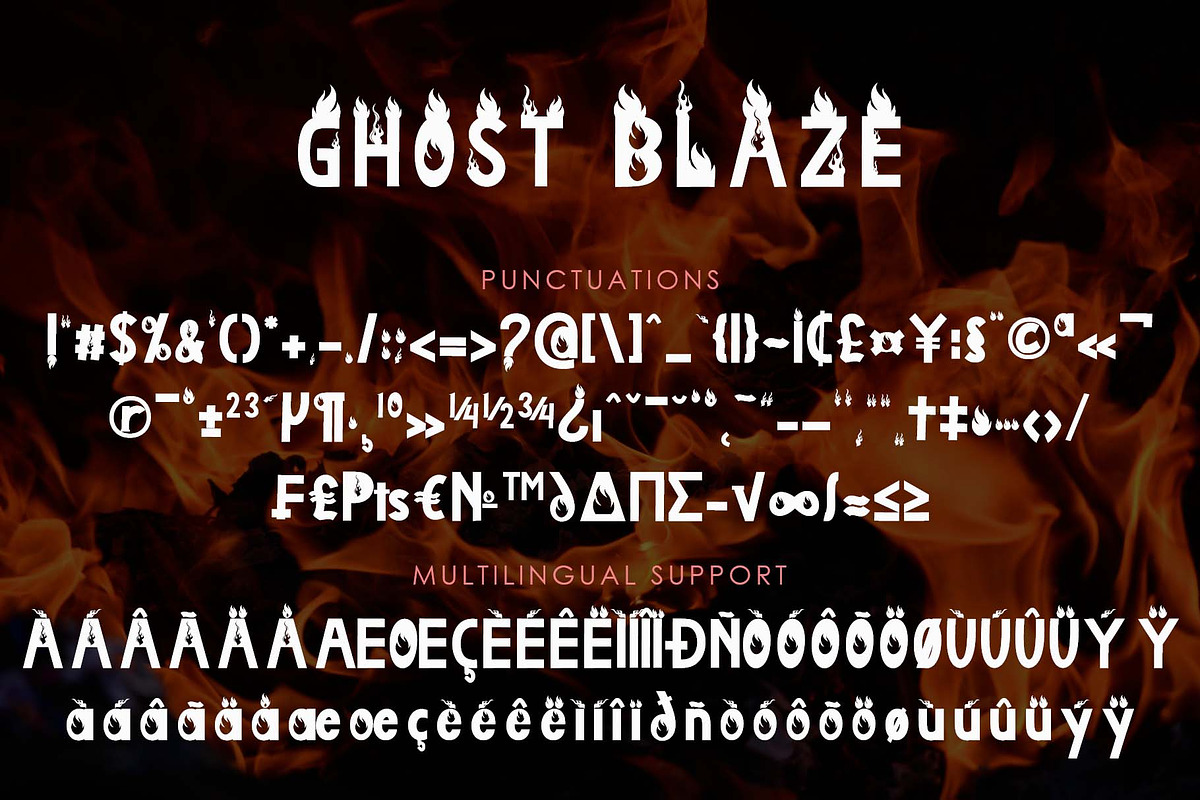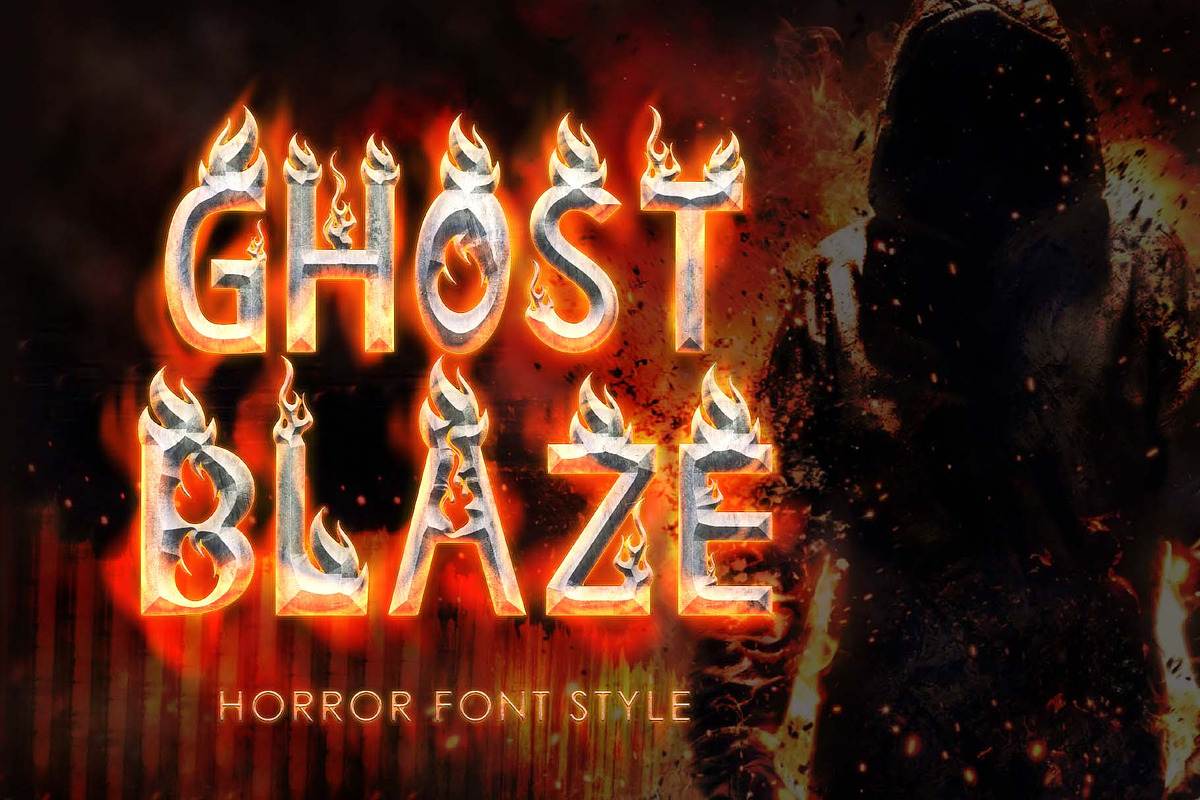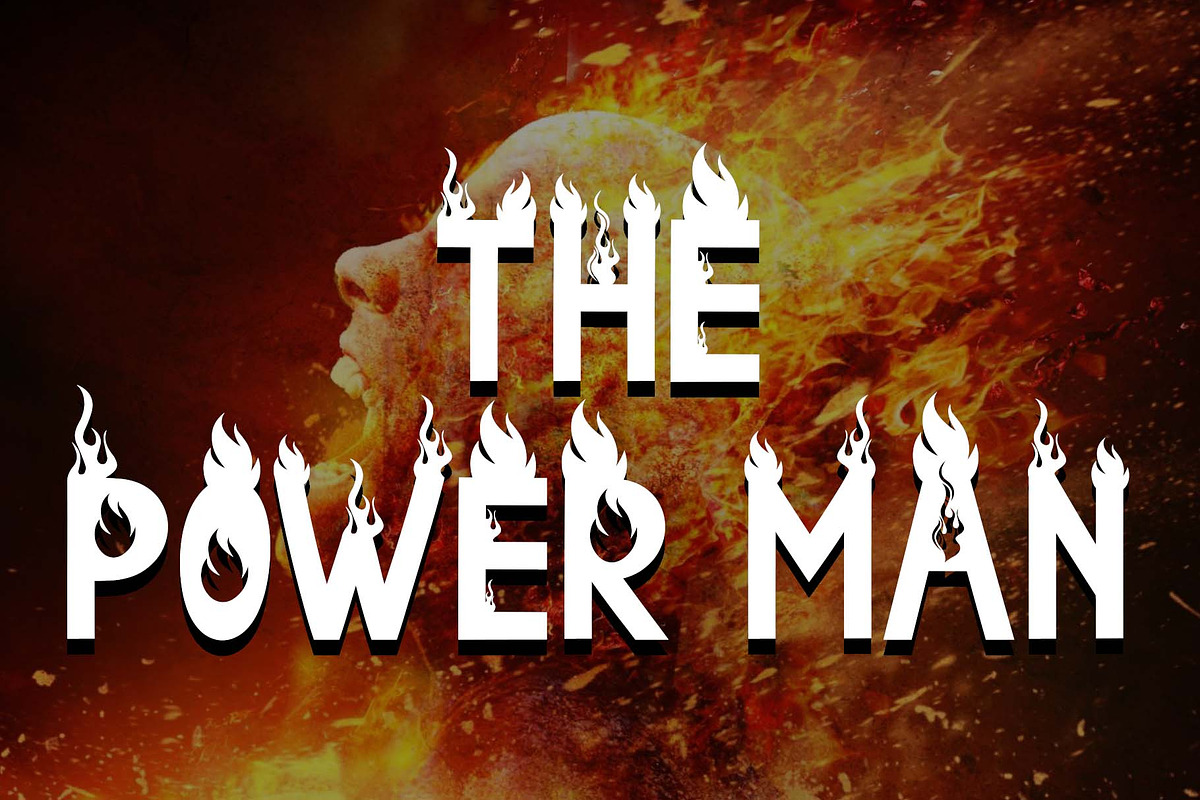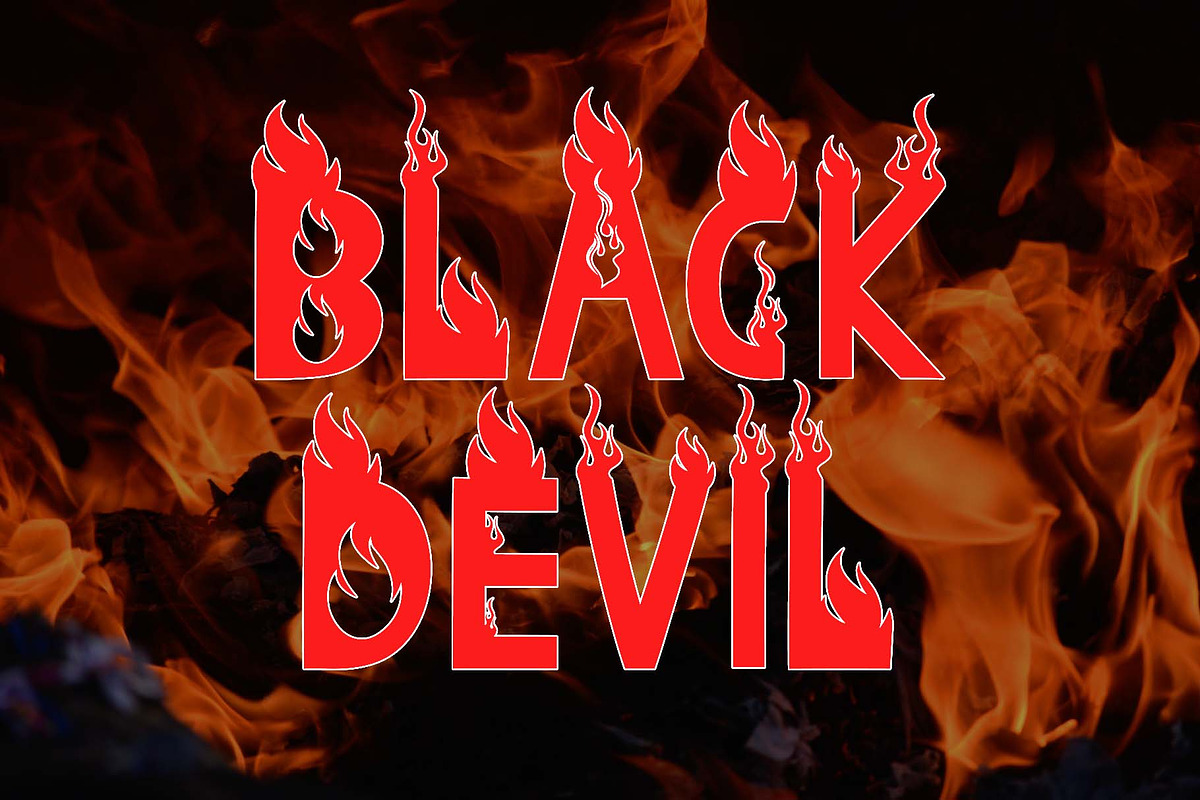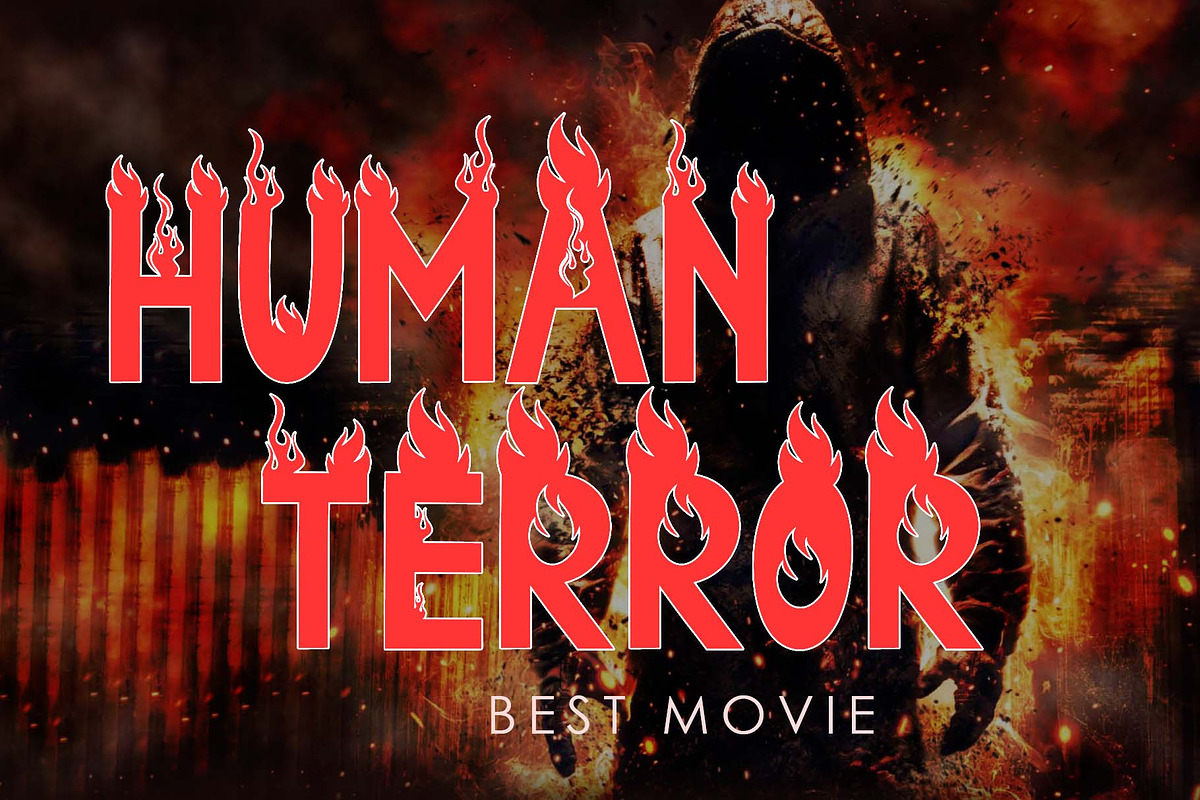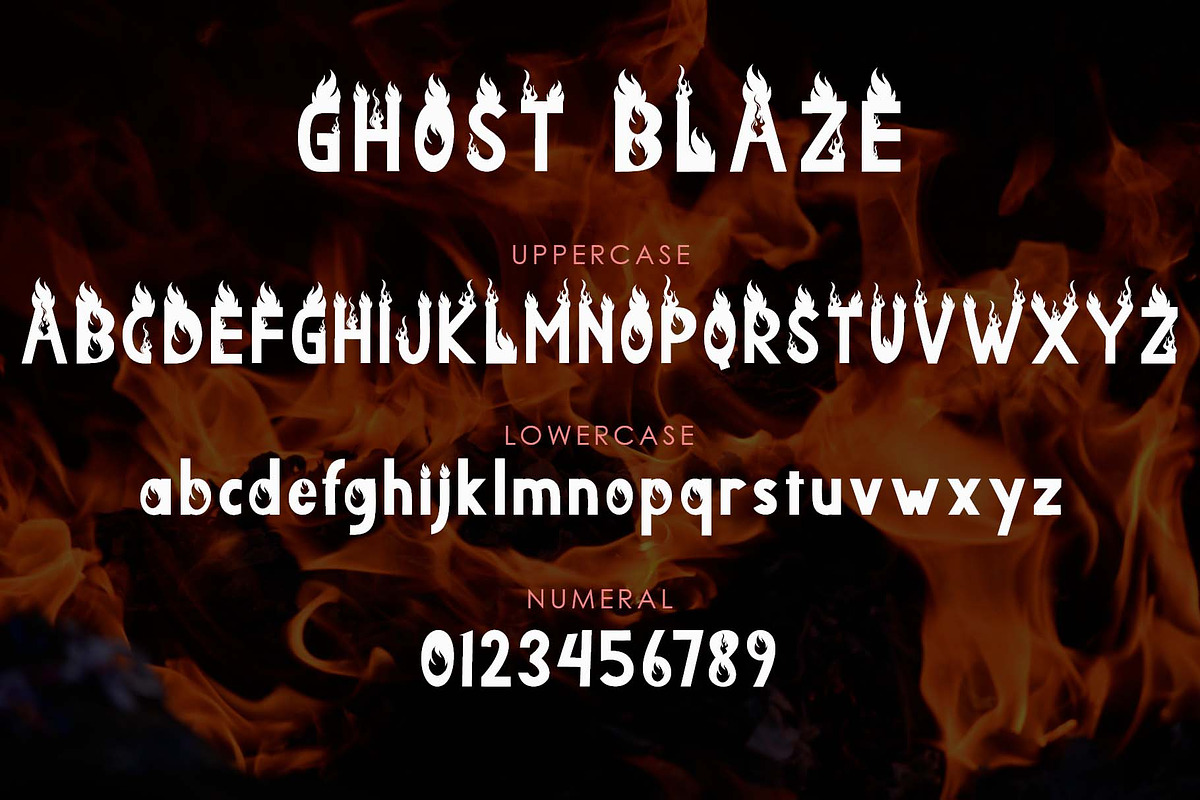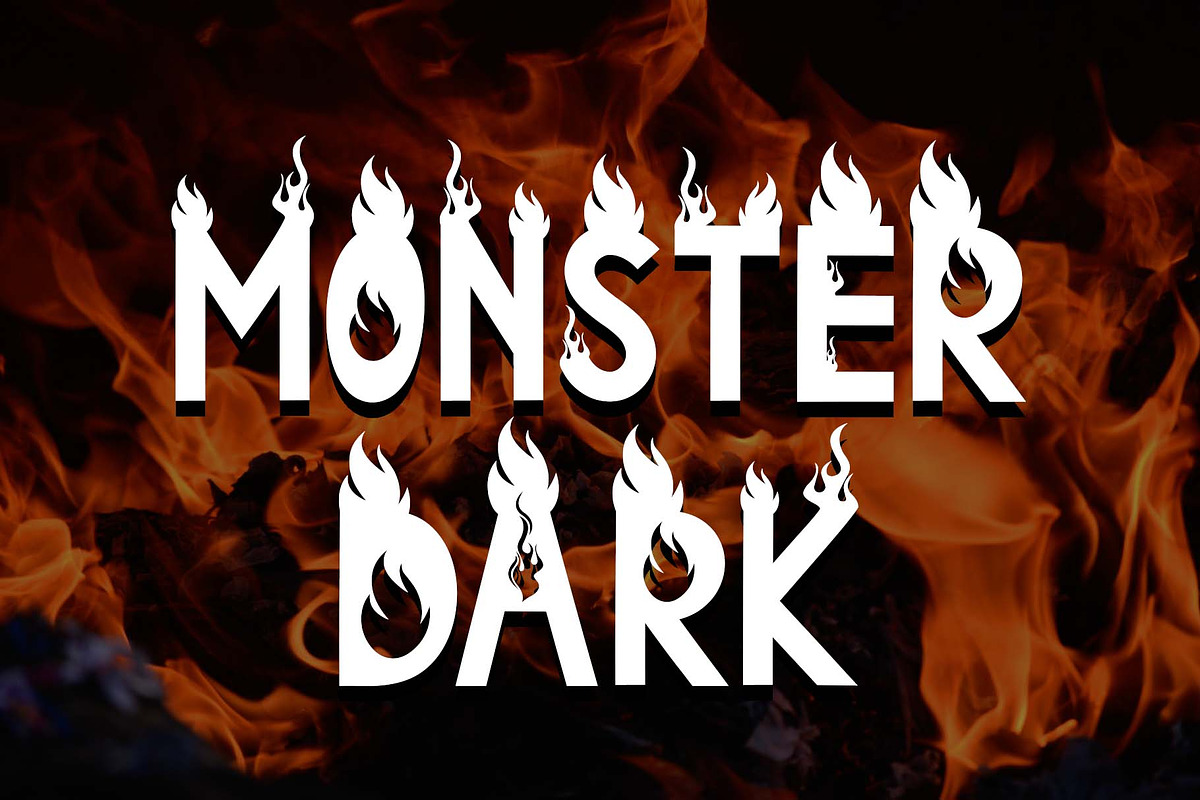
Ghost Blaze
"Ghost Blaze" is a horror font with elegant flame decoration. This font is equipped with uppercase, lowercase, numerals, punctuations and multilingual support. Very suitable for Halloween, film titles, comic titles, posters, stickers, branding, banners, logos, business branding and others.